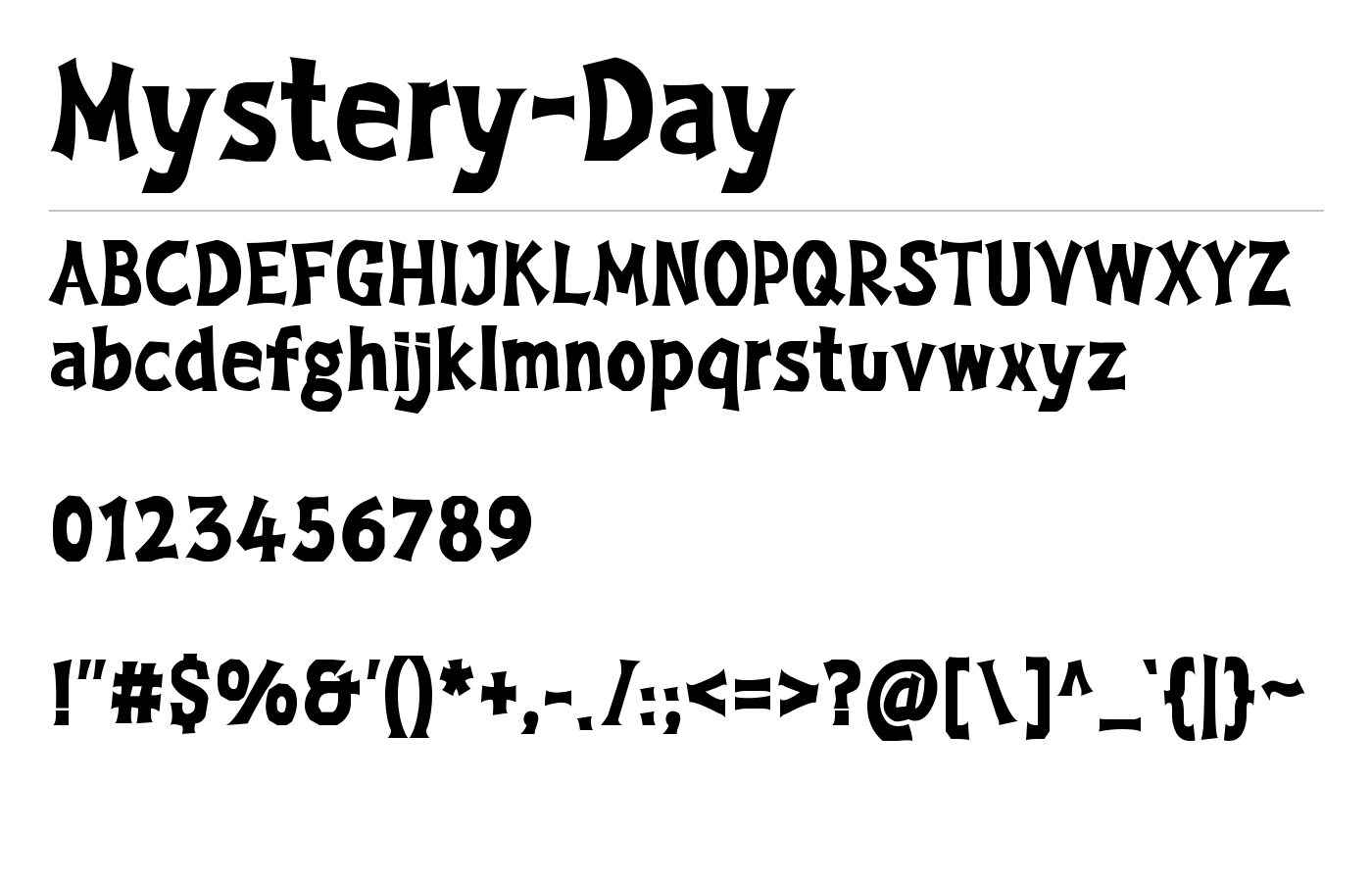
Mystery Day is a bold, playful serif font with a unique, irregular shape that gives it a quirky and adventurous feel. Its sharp, uneven serifs and varying stroke widths add character and energy, making it ideal for eye-catching headlines, logos, and creative projects that want to convey mystery or fun. This font works well in designs seeking a lively and unconventional vibe without sacrificing readability.
Mystery Day Font
About Mystery Day Font
| Font family | Mystery Day Font |
| Designer | Tokopress Team |